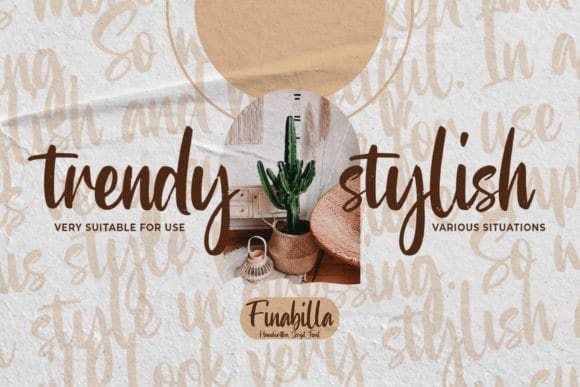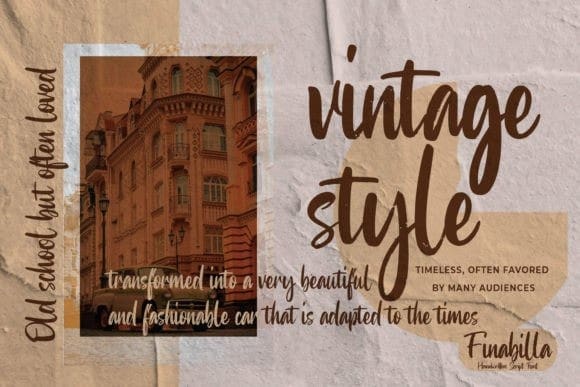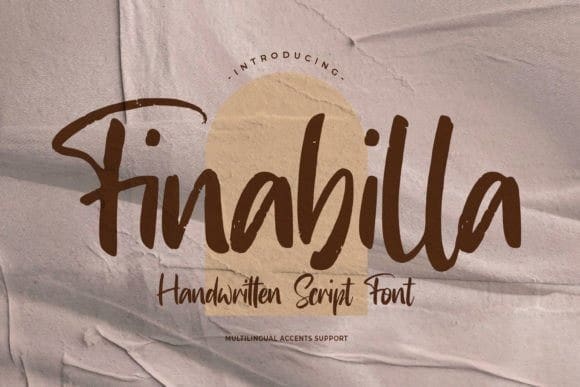
Finabilla Script Font
Finabilla Script Font, is a handwritten font with a natural feel. This handmade font will give a beautiful natural touch to any design. It is perfect for any design project including invitations, logos, book covers, crafts, or any design purposes.